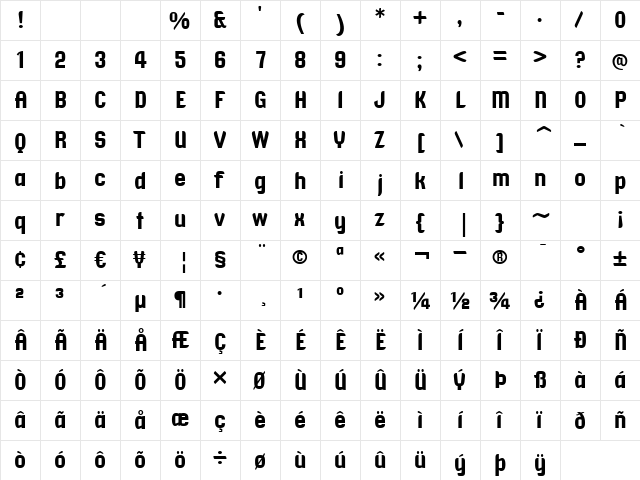
TangientGD Regular
Design Context for TangientGD Typeface
TangientGD offers clean, dependable letterforms without strong stylistic allegiance, making it a practical choice for designers who need flexibility.